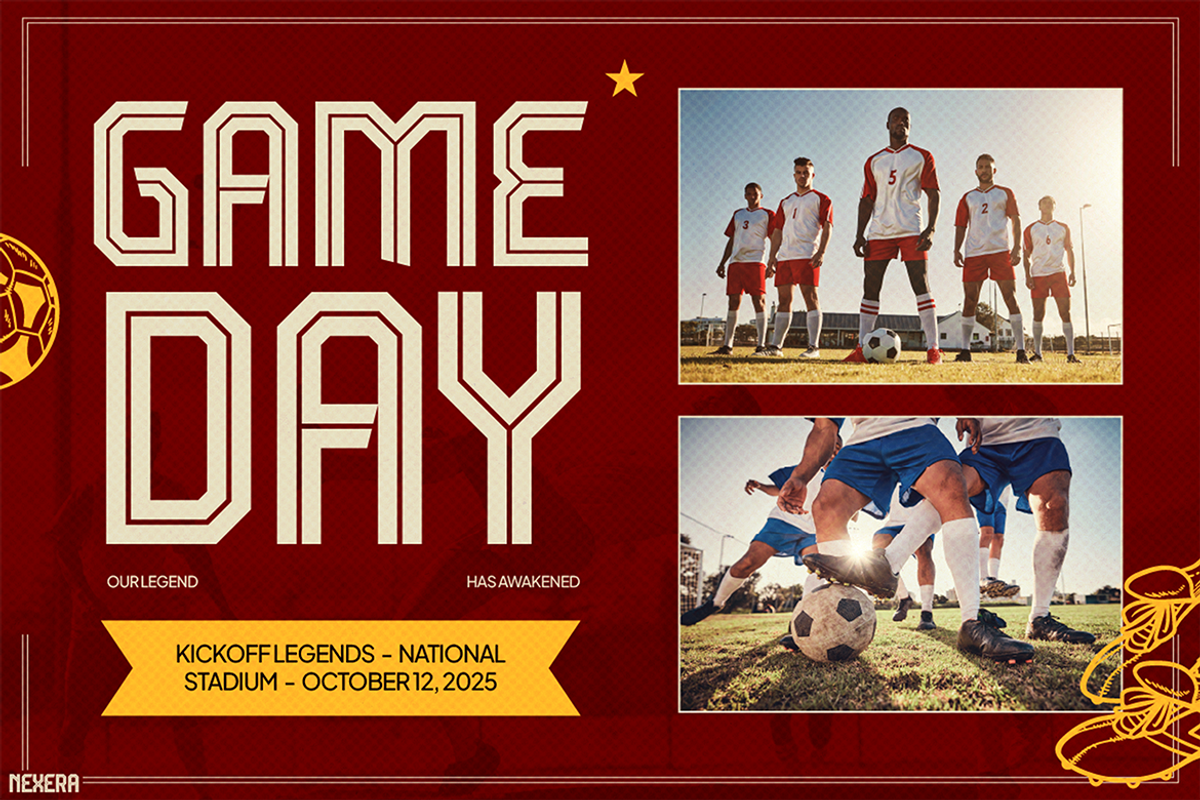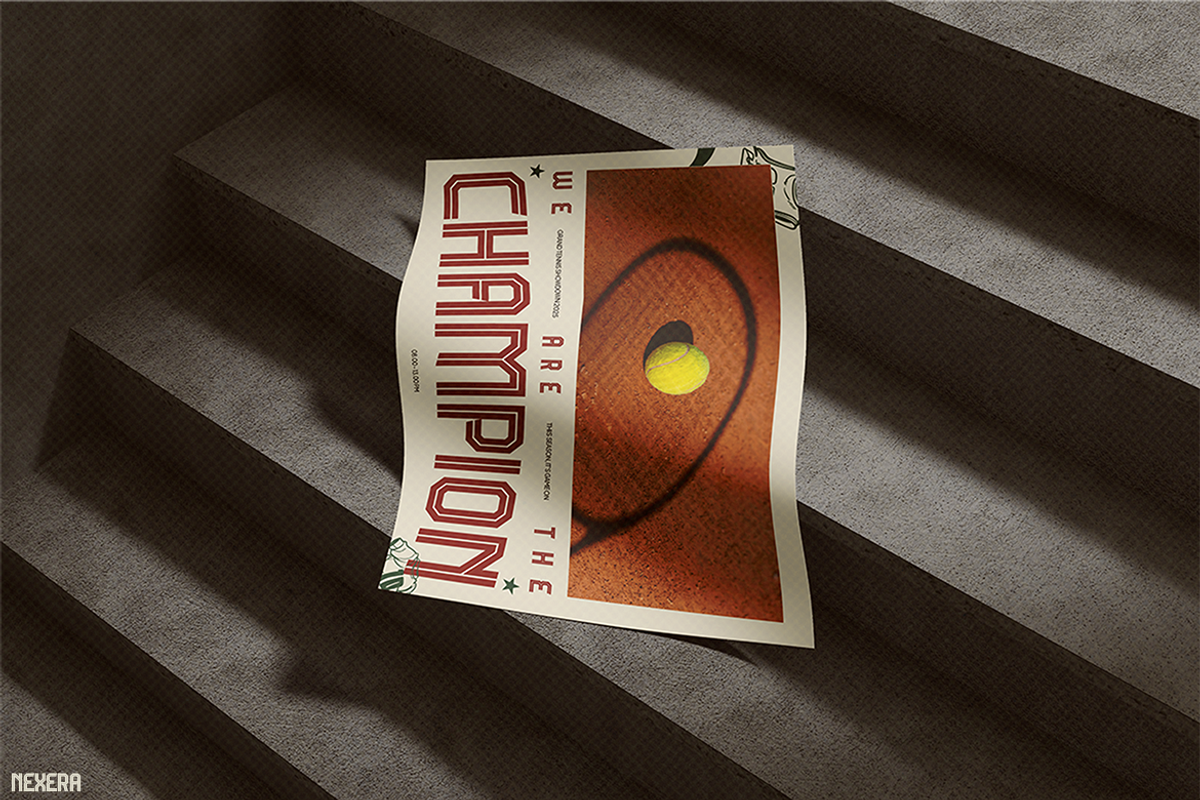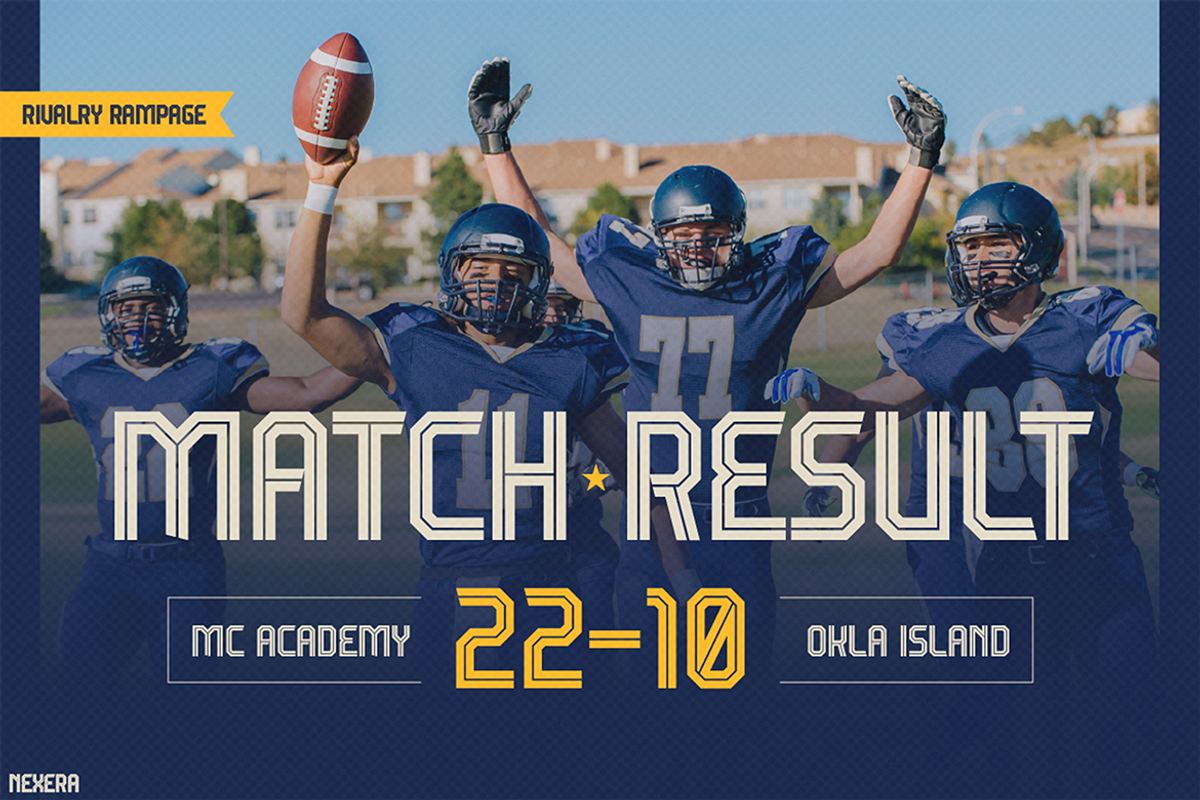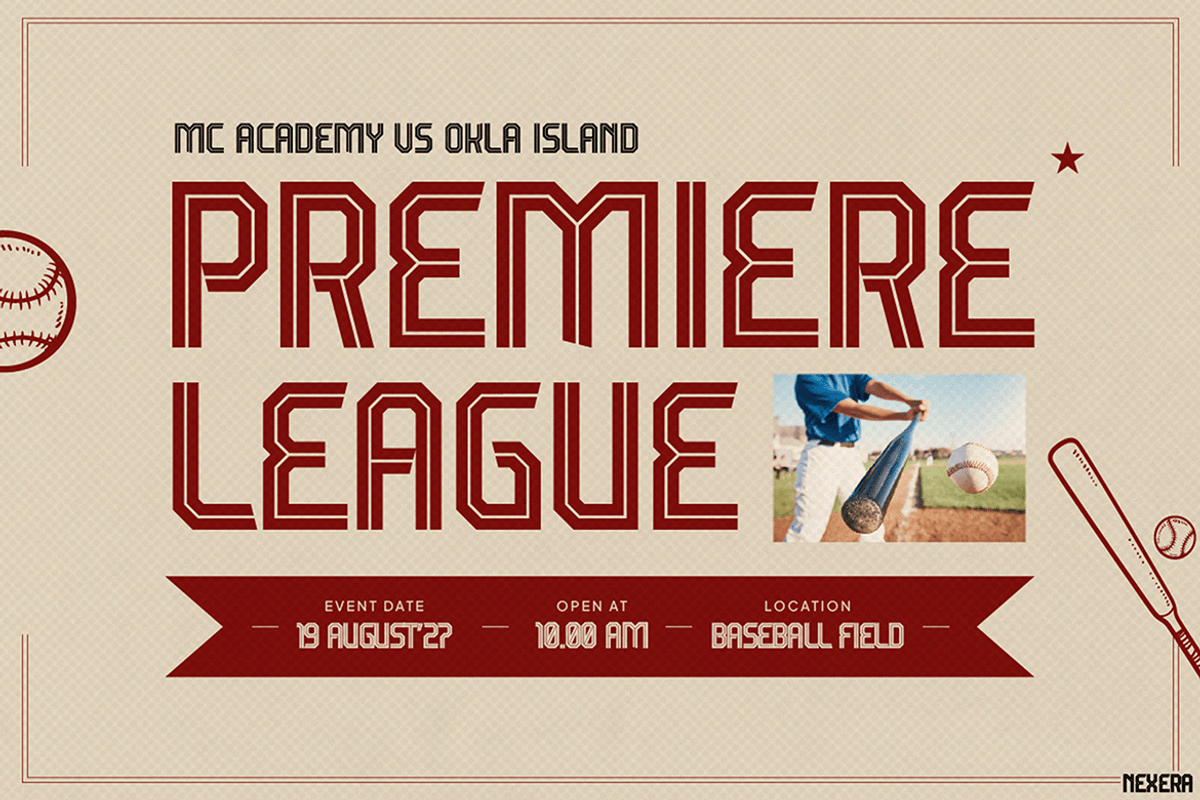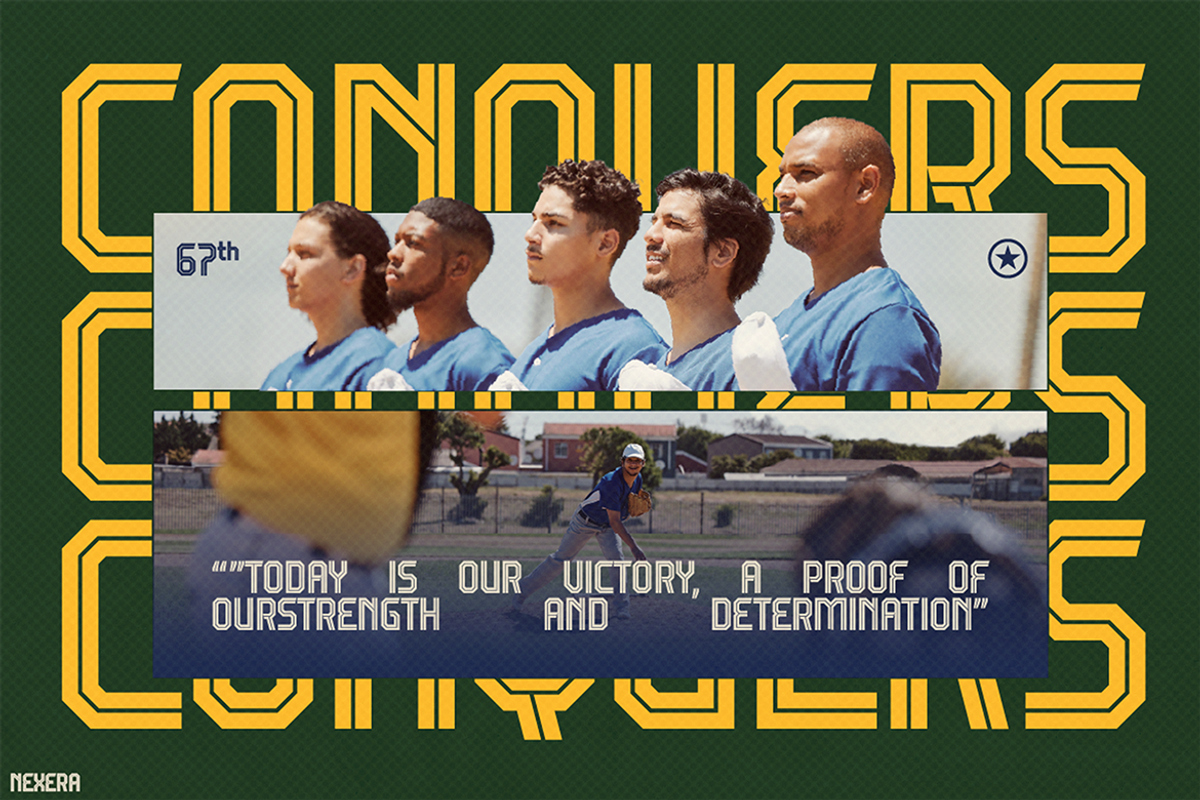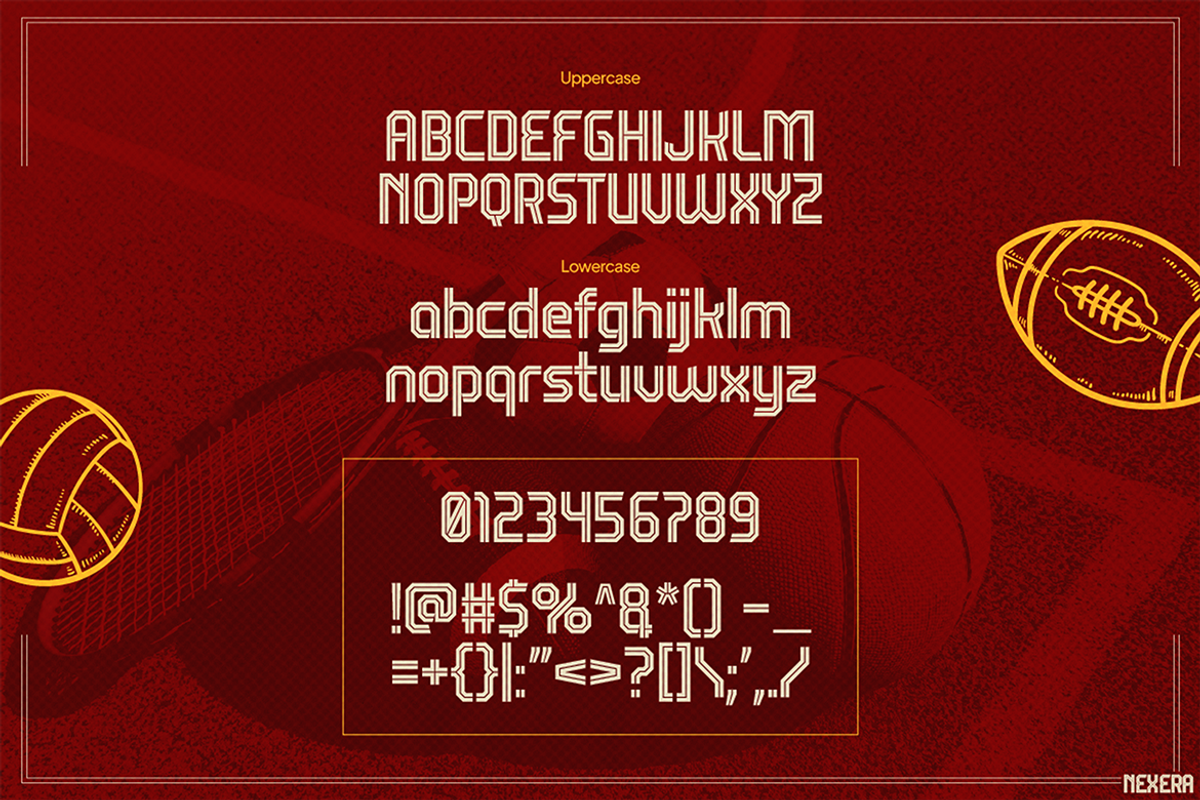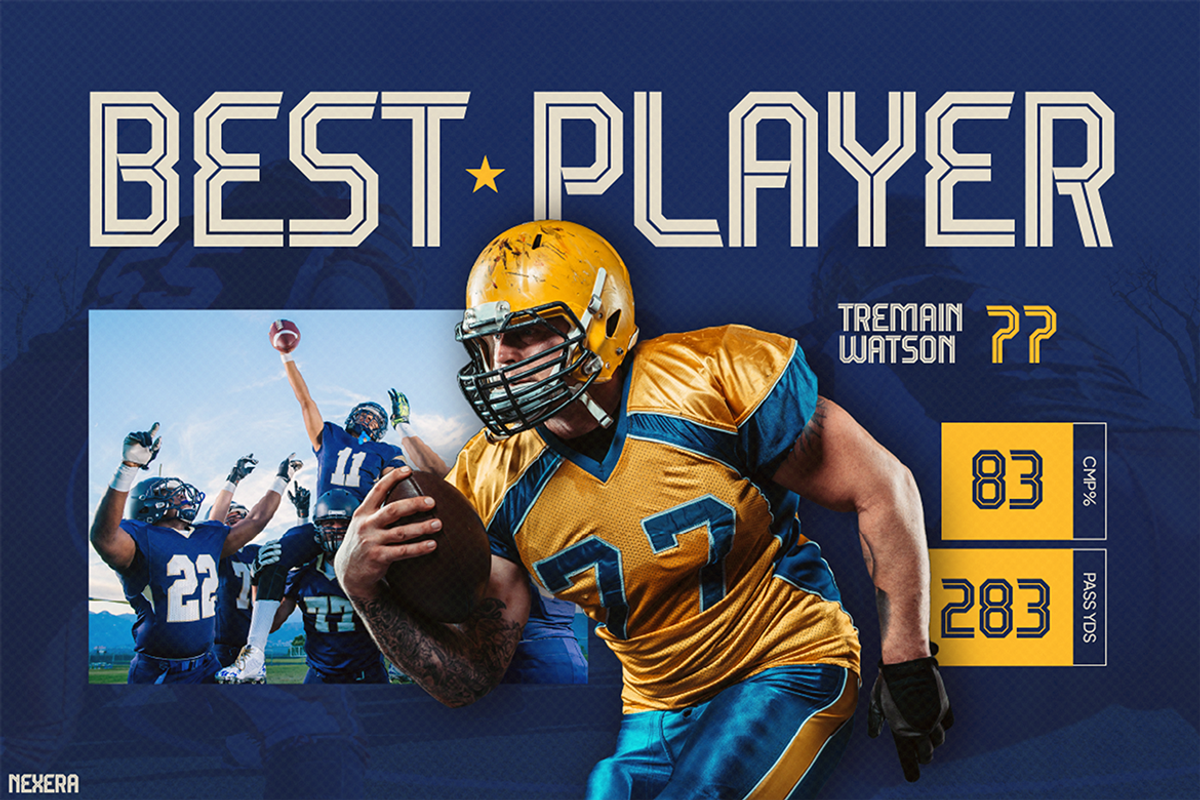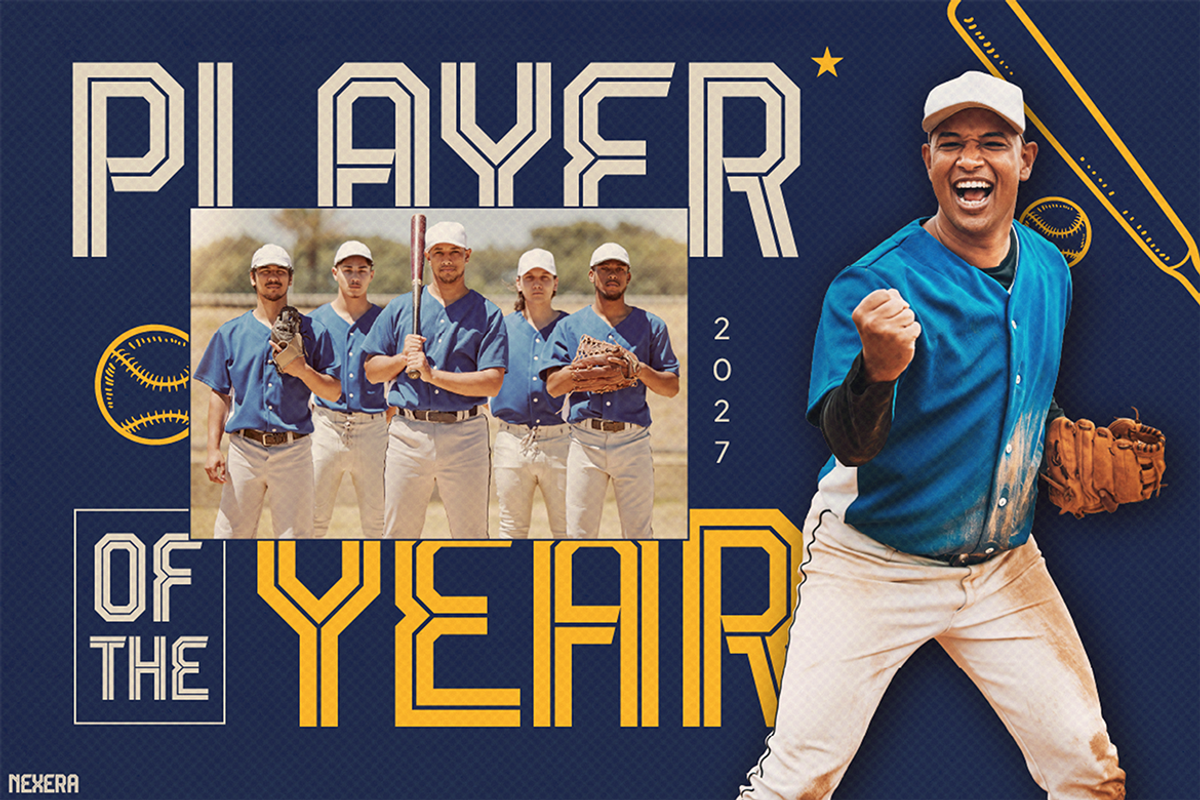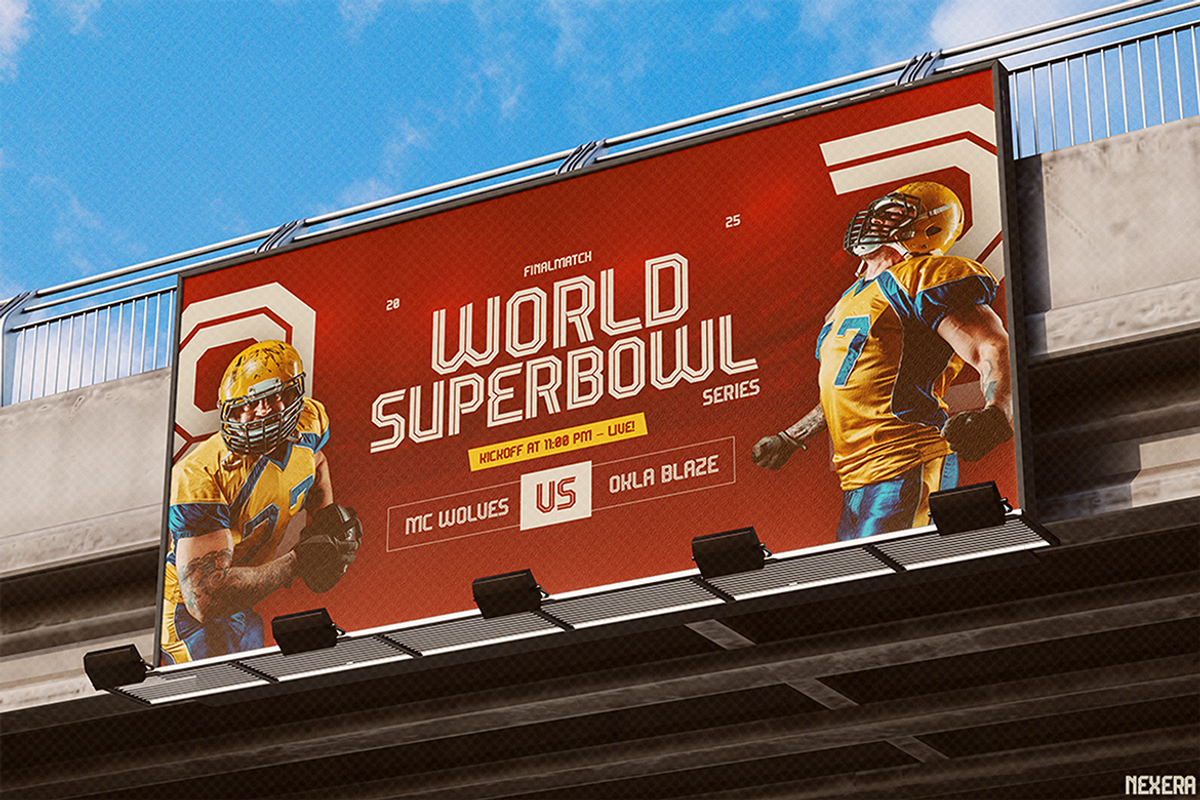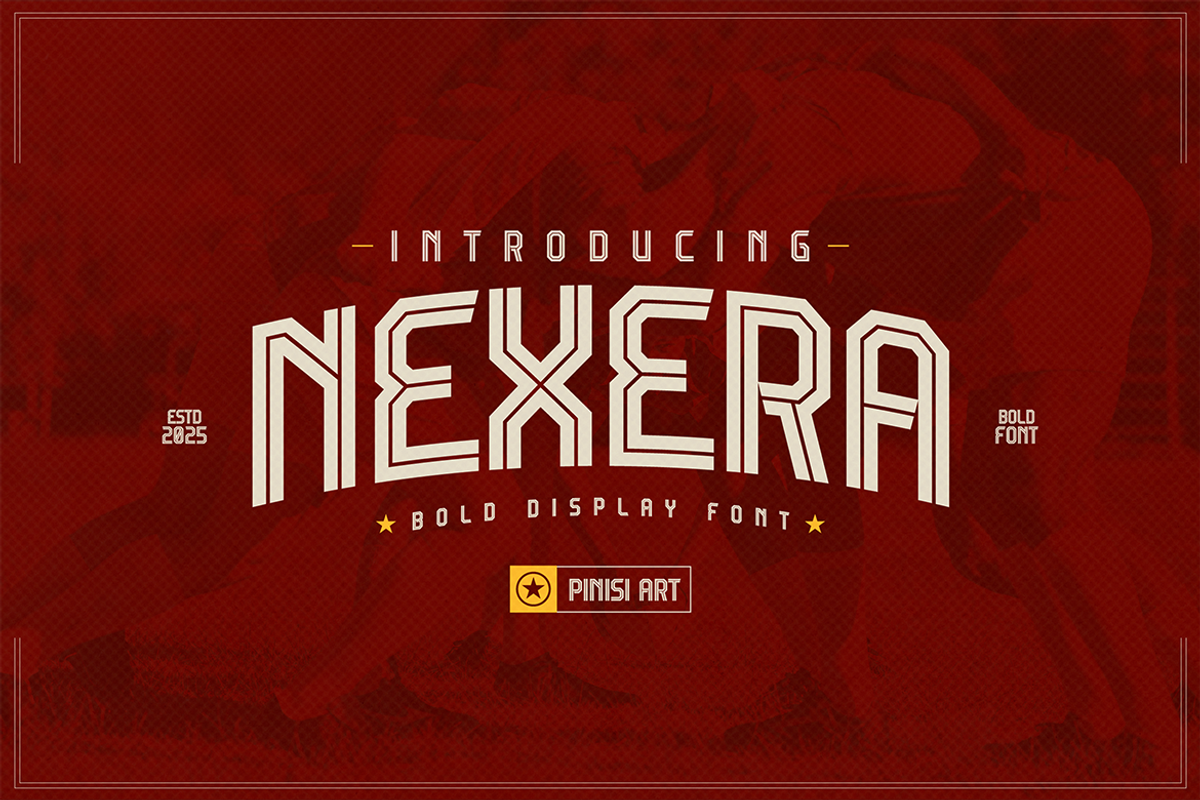
NEXERA
Sport Fonts NEXERA is a bold and modern typeface created to capture the true spirit of competition. Its geometric shapes, sharp edges, and dynamic letterforms instantly grab attention. Moreover, the font carries a sense of strength, energy, and determination. It reflects the thrill and excitement of game day. With versatile uppercase and lowercase options, Sport Fonts NEXERA works well for headlines and supporting text. Therefore, the design feels both powerful and stylish. In addition, it balances athletic aesthetics with professional readability. Whether used on posters, scoreboards, or digital graphics, this font turns words into bold statements that demand attention.
Perfect For Designers, Creatives, and Sports Enthusiasts Sport Fonts NEXERA is ideal for graphic designers working on sports projects, from football and basketball to esports and fitness. Marketing teams and event organizers can also rely on this font for match announcements, player highlights, and championship posters. Furthermore, apparel brands will find it valuable for jerseys, merchandise, and fan gear. On the other hand, social media managers can use Sport Fonts NEXERA to boost posts with bold, eye-catching style.
Additionally, coaches, schools, and sports academies can benefit from it when creating banners, training schedules, or motivational slogans. Independent creators, such as YouTubers or streamers, can also use this font to brand their channels with a professional and competitive look. Because of its strong legibility, NEXERA adapts equally well for both digital platforms and print campaigns.